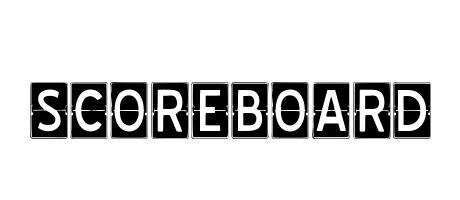
Scoreboard
By Woodcutter
SCOREBOARD: A bold, sans-serif typeface reminiscent of classic flip-board displays. Each letter sits squarely within its own black box, creating a segmented, almost mechanical aesthetic. The white lettering provides sharp contrast against the dark background, suggesting a clean, functional design, suitable for a digital or retro-inspired context.